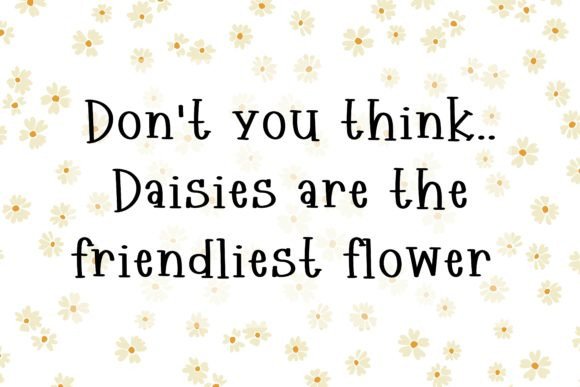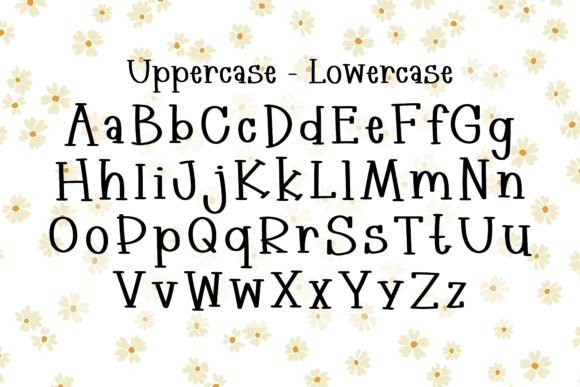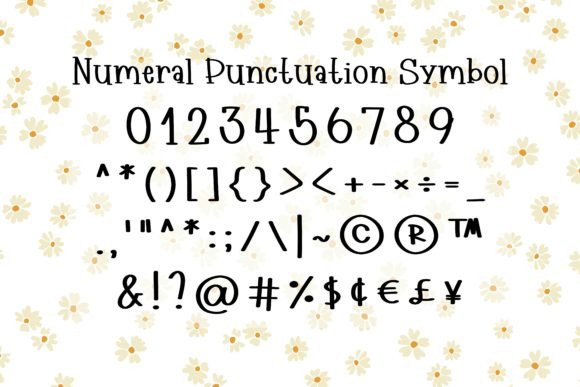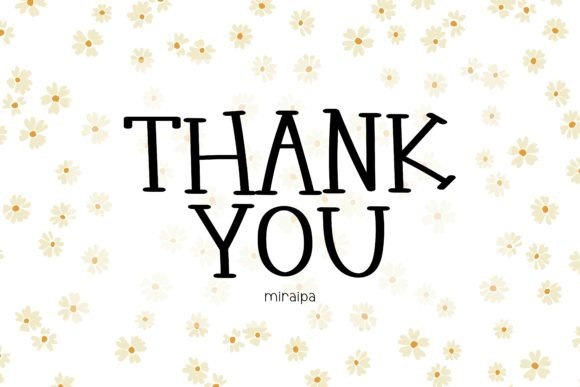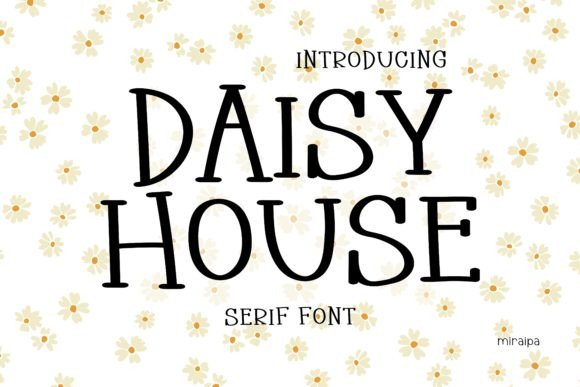
Daisy House Font: The Cute and Friendly Handwritten Serif Font You Need
Are you a designer or crafter looking for a font that can add a touch of warmth and personality to your creations? Look no further than the Daisy House Font. This cute and friendly handwritten serif font is perfect for a wide range of projects, from invitations and greeting cards to blog posts and social media graphics.
What Makes Daisy House Font So Special?
Daisy House Font is a unique and charming font that is sure to capture the hearts of your audience. Its handwritten serif style gives it a personal and approachable feel, making it perfect for projects that require a touch of warmth and personality. The font is designed to be highly versatile, making it suitable for a wide range of topics and themes.
Key Features of Daisy House Font
- Cute and Friendly Design: The Daisy House Font has a playful and charming design that is sure to delight your audience.
- Handwritten Serif Style: The font’s handwritten serif style gives it a personal and approachable feel.
- Highly Versatile: The font is suitable for a wide range of topics and themes, making it a great addition to any font library.
- Easily Readable: The font is designed to be easily readable, even at small sizes.
Uses for Daisy House Font
The Daisy House Font is perfect for a wide range of projects, including:
- Invitations and Greeting Cards: The font’s cute and friendly design makes it perfect for invitations and greeting cards.
- Blog Posts and Social Media Graphics: The font’s highly versatile design makes it suitable for blog posts and social media graphics.
- Crafting and DIY Projects: The font’s handwritten serif style makes it perfect for crafting and DIY projects.
- Branding and Packaging: The font’s unique and charming design makes it suitable for branding and packaging projects.
Why You Need Daisy House Font in Your Font Library
The Daisy House Font is a wonderful asset to any font library. Its cute and friendly design, highly versatile style, and easily readable format make it perfect for a wide range of projects. Whether you’re a designer or crafter, this font is sure to enhance any creation and add a touch of warmth and personality.
Tips for Using Daisy House Font
- Pair with Other Fonts: The Daisy House Font pairs well with other fonts, making it easy to create unique and interesting combinations.
- Experiment with Colors: The font’s design looks great in a variety of colors, so don’t be afraid to experiment and find the perfect hue for your project.
- Use for Headings and Body Text: The font’s easily readable format makes it suitable for both headings and body text.
| Font Name | Daisy House Font |
| Author | miraipa |
The Daisy House Font is a cute and friendly handwritten serif font that is perfect for designers and crafters. Its highly versatile design, easily readable format, and unique and charming style make it a wonderful asset to any font library. Whether you’re working on a specific project or just looking to add a new font to your collection, the Daisy House Font is sure to delight.